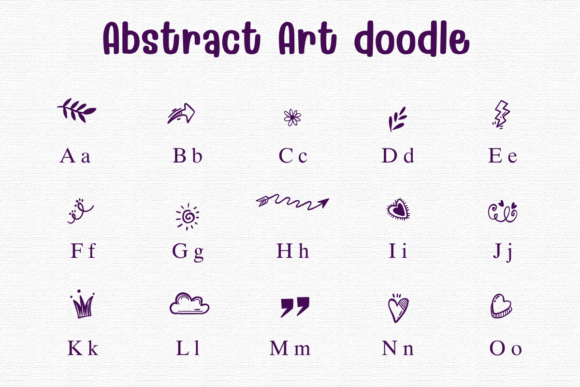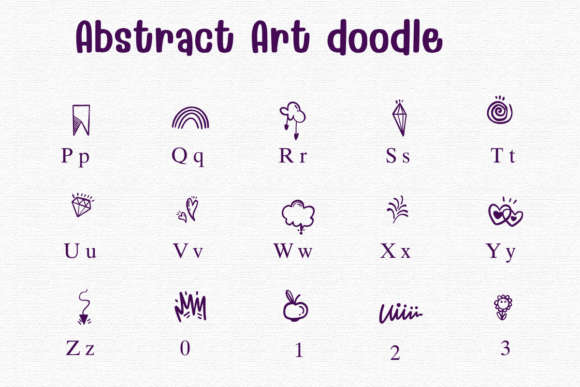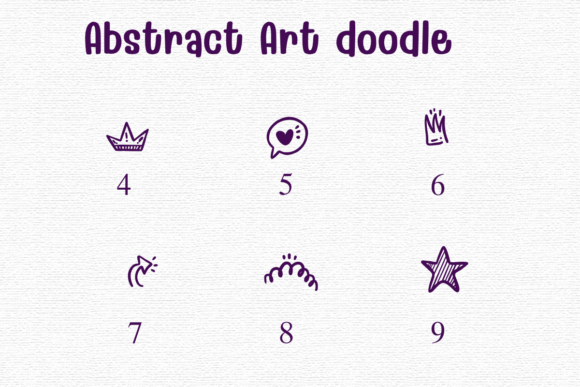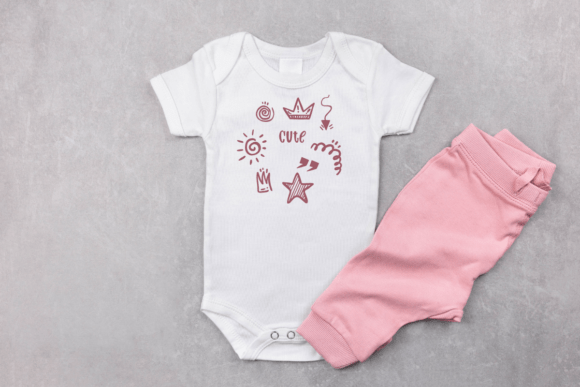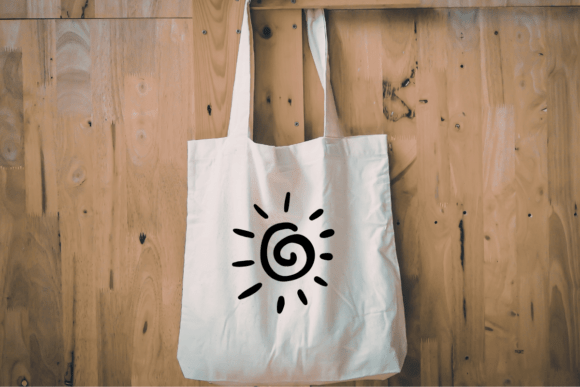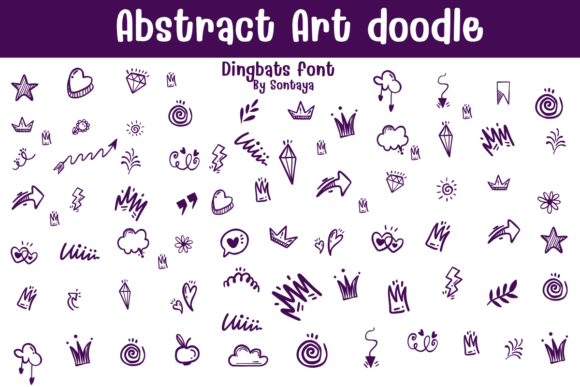
Unlocking Creativity with Abstract Art Doodle Fonts
Abstract art doodle fonts have taken the design world by storm, offering a unique and creative way to add a personal touch to various projects. These fonts are perfect for designers, crafters, and artists looking to add a dash of whimsy and personality to their work. In this article, we’ll explore the world of abstract art doodle fonts, their benefits, and how to use them in popular design software.
What are Abstract Art Doodle Fonts?
Abstract art doodle fonts are a type of digital font that features playful, hand-drawn designs and patterns. These fonts often resemble doodles, with intricate lines, shapes, and swirls that add a touch of personality to any project. They can be used for a wide range of applications, from digital art and illustrations to crafting and scrapbooking.
Types of Abstract Art Doodle Fonts
Benefits of Using Abstract Art Doodle Fonts
Abstract art doodle fonts offer several benefits, including:
• Unique and Creative Designs: Add a personal touch to your projects with one-of-a-kind designs.
• Versatility: Use abstract art doodle fonts in various design software and applications.
Coloring Outline and Dingbats Doodle Cartoon Fonts
Some abstract art doodle fonts come with coloring outline and dingbats doodle cartoon features, which allow you to:
• Create Custom Illustrations: Use coloring outline fonts to create custom illustrations and designs.
• Add Cartoon-Style Elements: Use dingbats doodle cartoon fonts to add fun and playful elements to your designs.
Tips and Tricks for Using Abstract Art Doodle Fonts
Here are some tips and tricks for getting the most out of abstract art doodle fonts:
• Experiment with Different Fonts: Try out different fonts and combinations to find the perfect look for your project.
• Customize and Edit: Customize and edit your fonts to fit your specific design needs.
• Use in Combination with Other Design Elements: Use abstract art doodle fonts in combination with other design elements, such as shapes and textures, to create visually interesting designs.
Abstract art doodle fonts offer a world of creative possibilities for designers, crafters, and artists. With their unique and playful designs, these fonts can add a personal touch to any project. By understanding the different types of abstract art doodle fonts, their benefits, and how to use them in popular design software, you can unlock your full creative potential and take your designs to the next level.